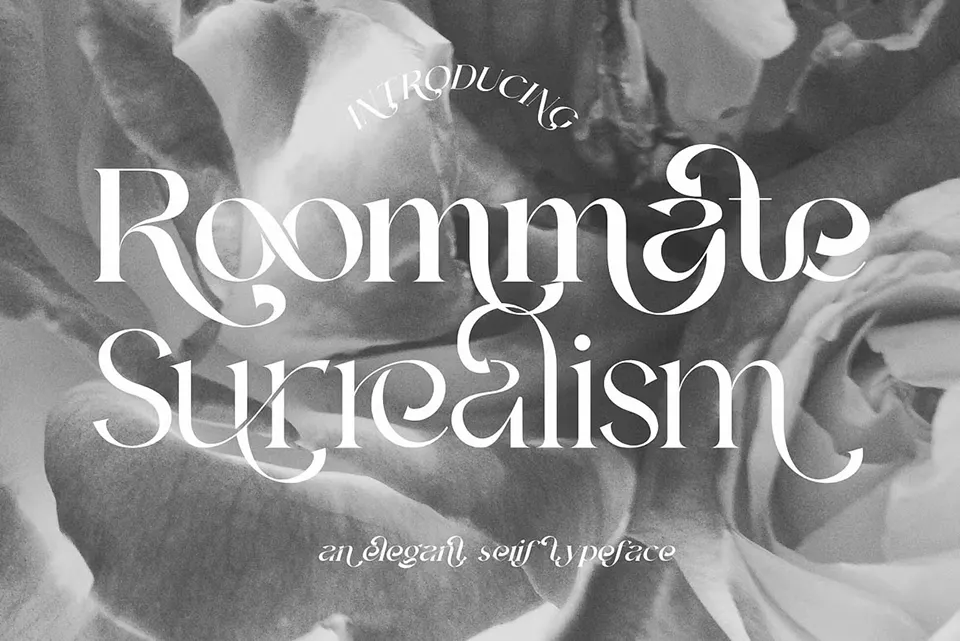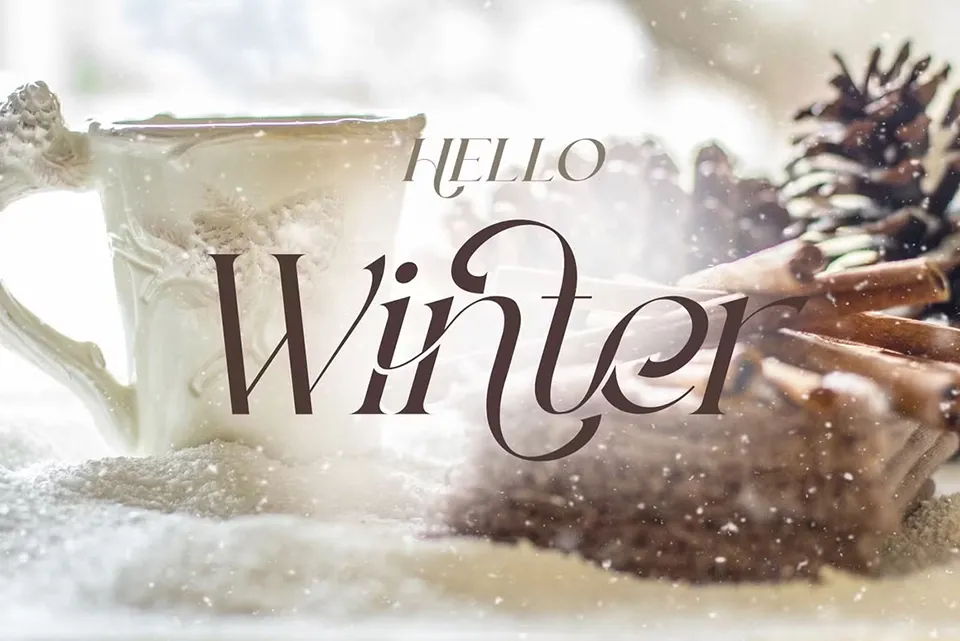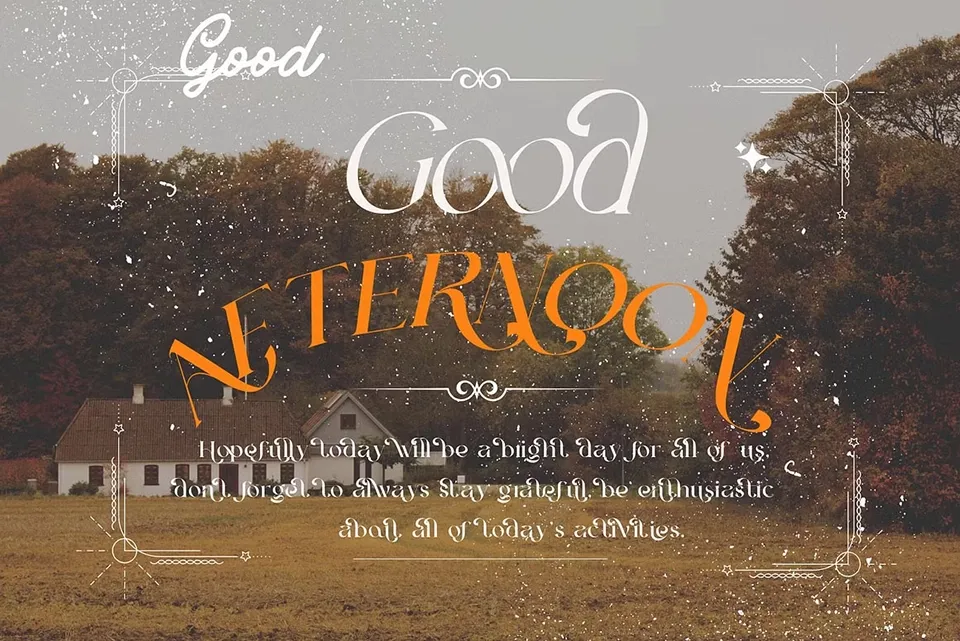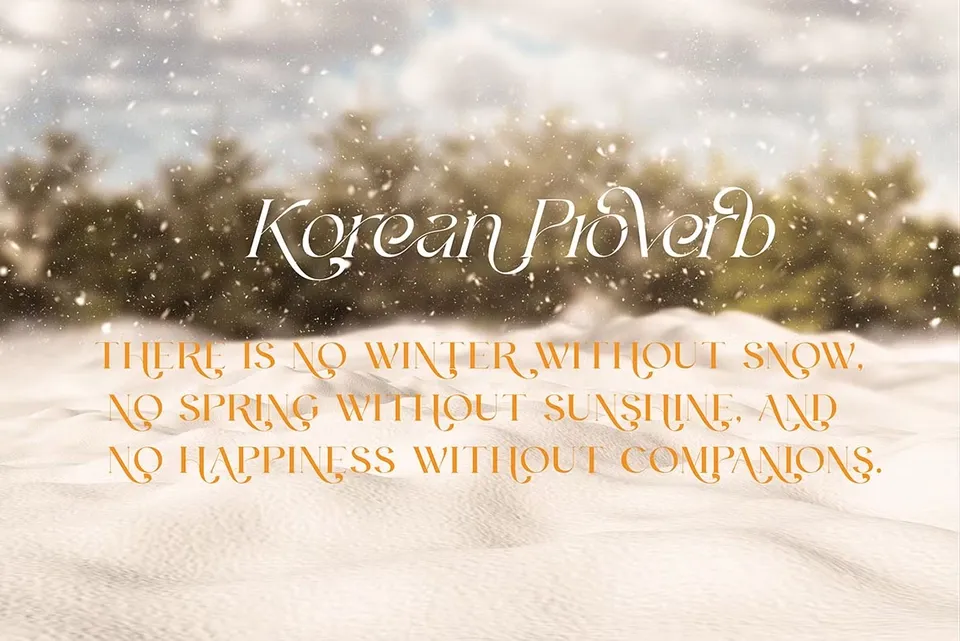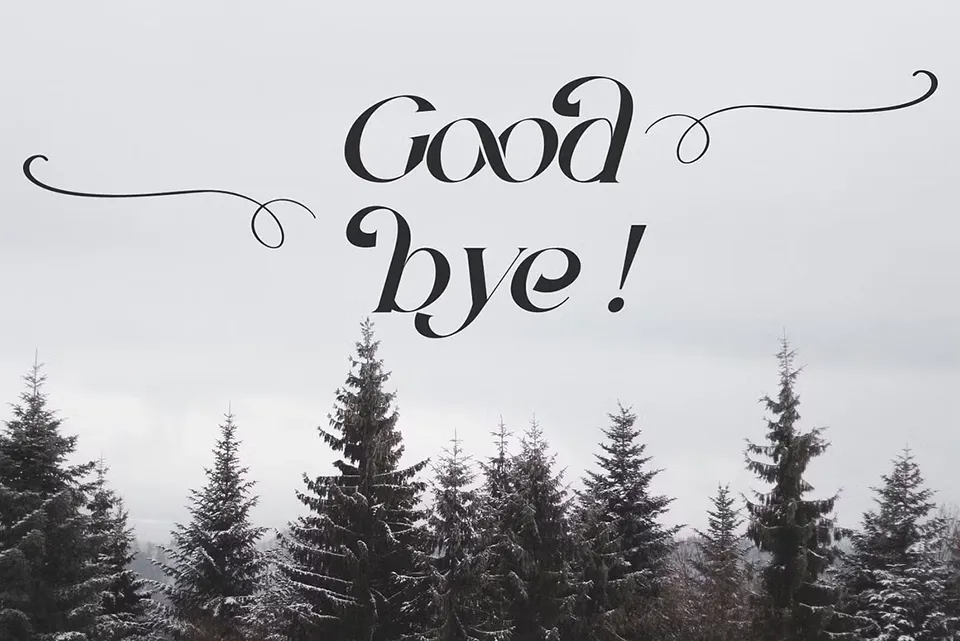
Roommate Surrealism Font
Roommate Surrealism Font is a balanced, smooth, elegant, and stylish serif font. Meticulously crafted, it offers a perfect blend of timeless beauty and contemporary sophistication. This font is ideal for invitation cards, company logos, movie titles, business cards, book titles, brand names, and a variety of other design projects. Featuring 100 ligatures, alternates, numbers, punctuation, and multilingual support, Roommate Surrealism Font is built with OpenType features to elevate your creative work.